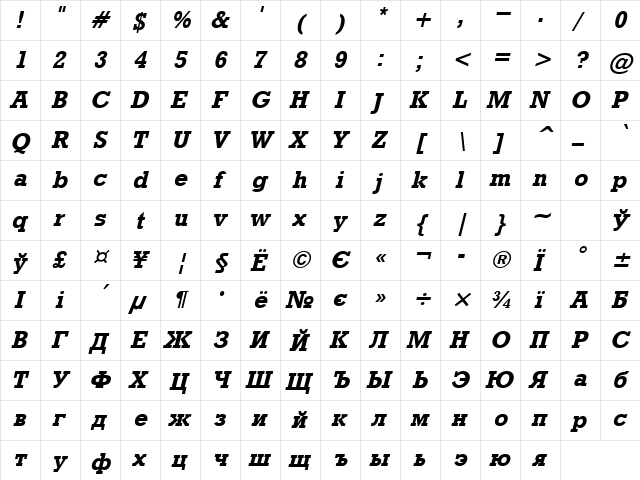
Rodeo Bold Italic
Design Context for Rodeo Typeface
Rodeo is a composed and adaptable typeface that performs quietly and consistently across a wide range of design contexts. The dynamic lean of this cut emphasises speed and emphasis in any layout. Its bold stroke weight gives it real presence on the page.